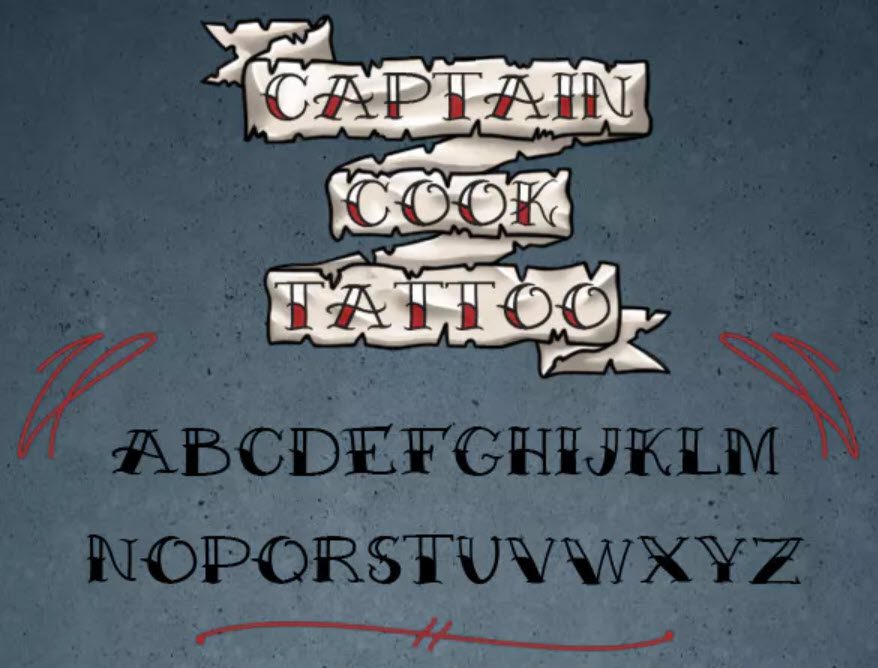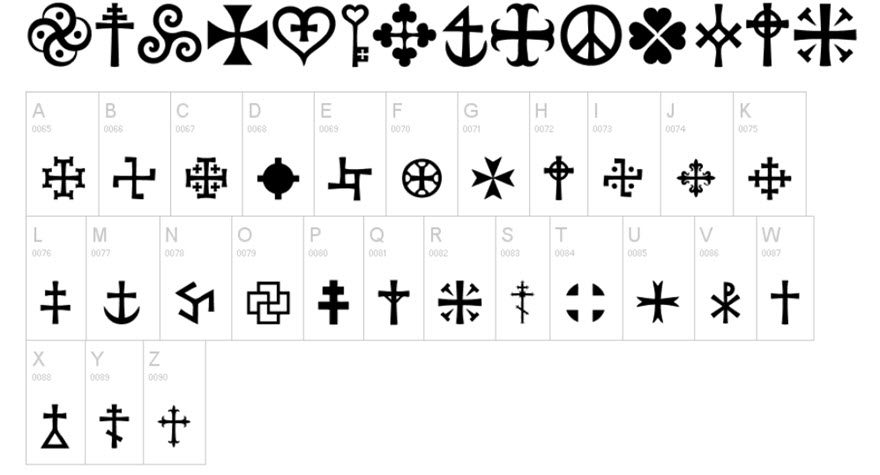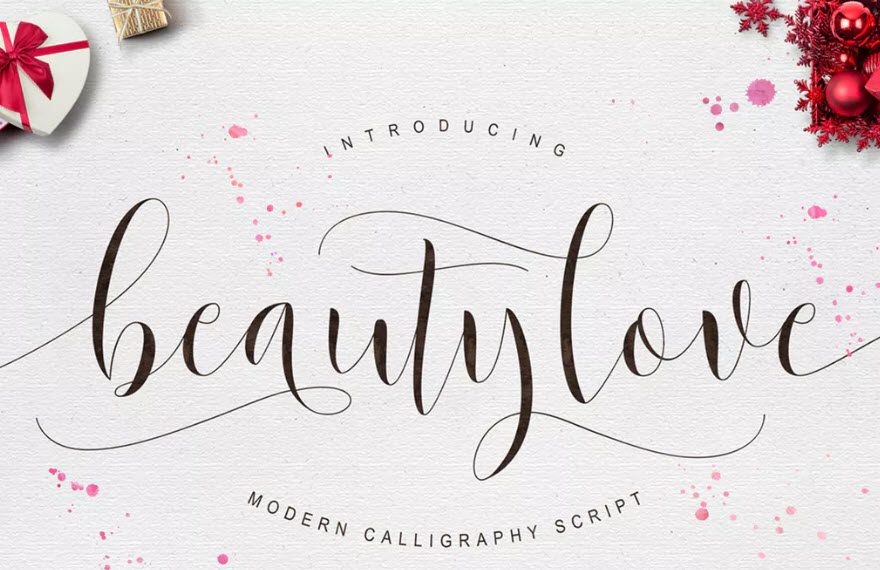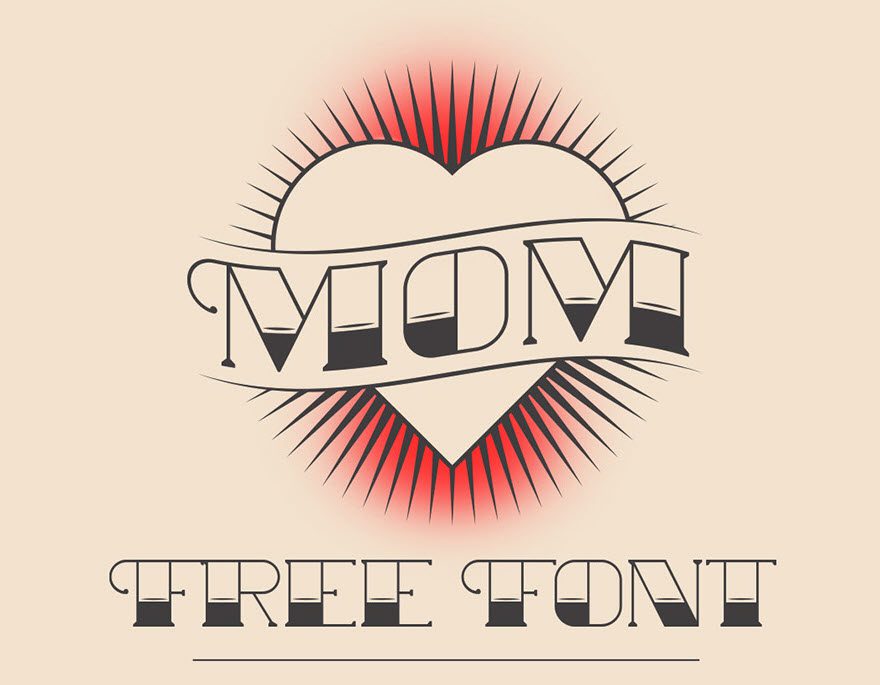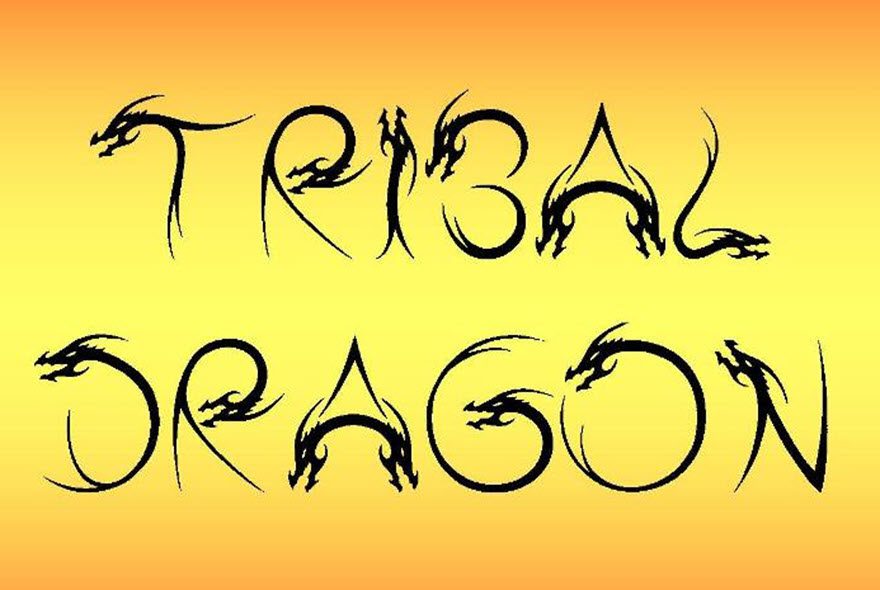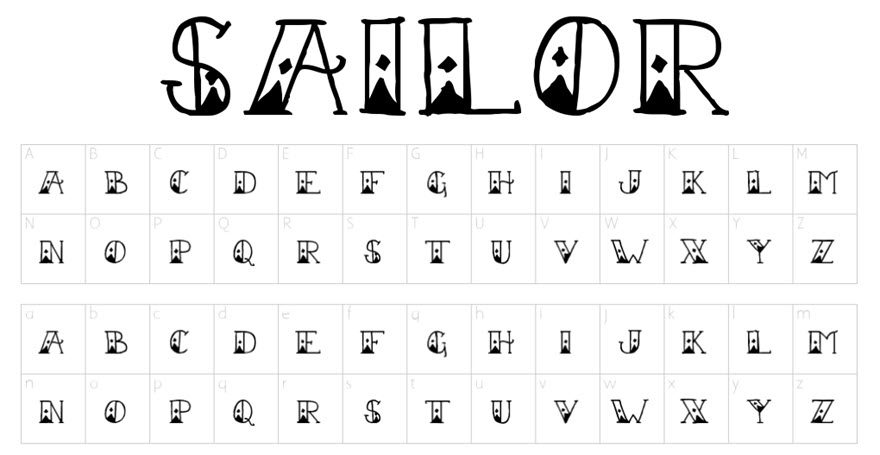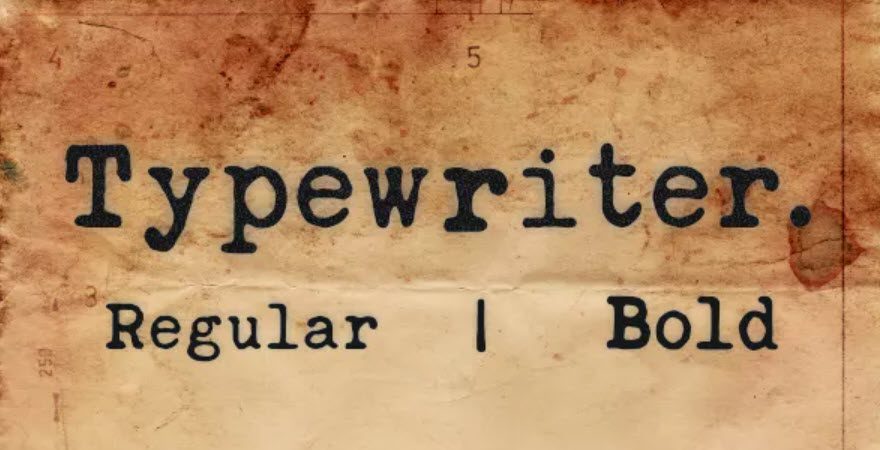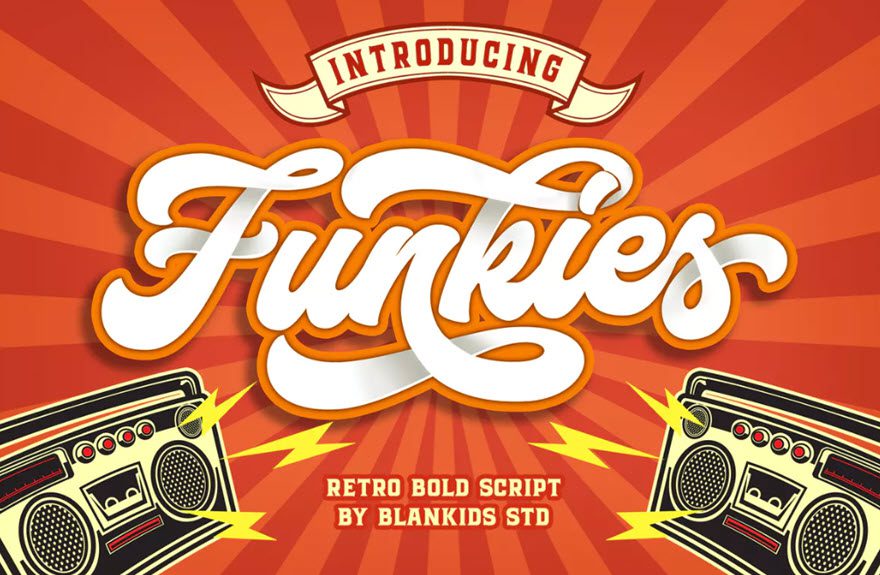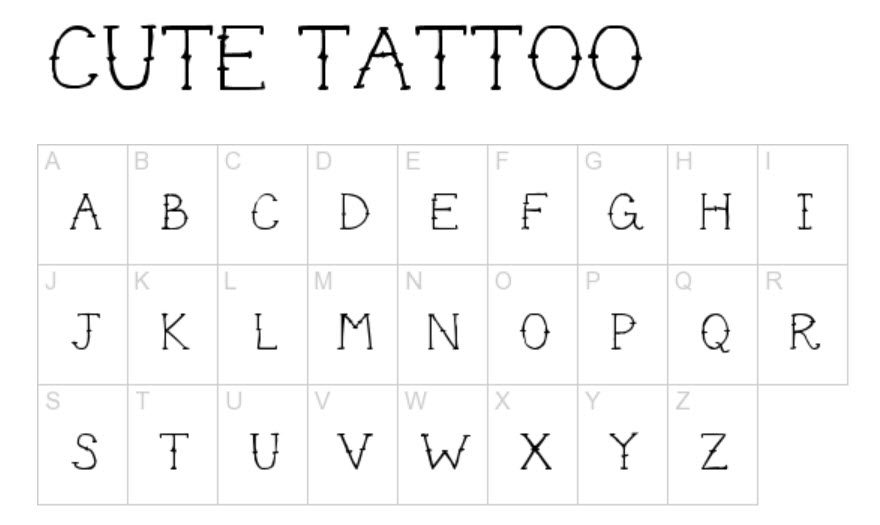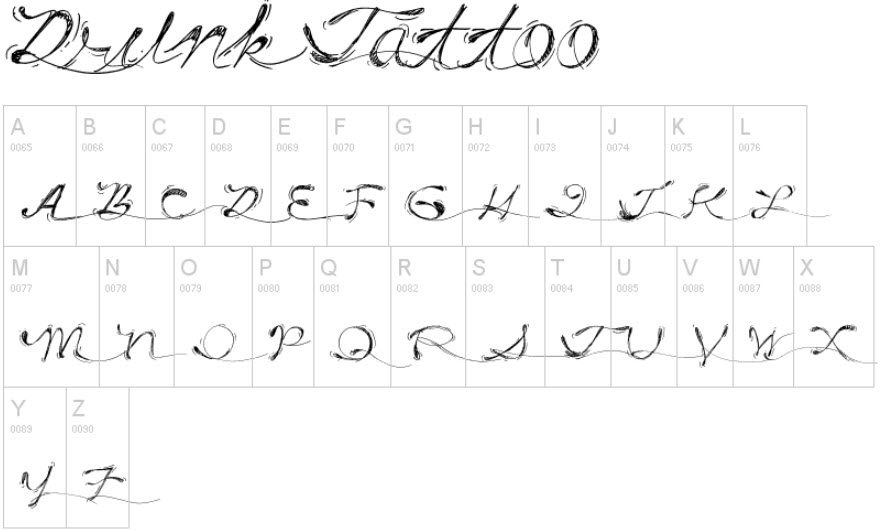
21 Tattoo Fonts and Scripts to Ink into Your Website Forever
Tattoos are (nearly) forever. So you want to make sure that the font you choose to script into your skin is as perfect as it can possibly be. The same holds true of your website. If you follow best practices, you’re not changing up themes and fonts terribly often. So if you’re looking for an edgy, indie aesthetic for your website, you can’t go wrong iwth any of these tattoo fonts.
Free Tattoo Fonts
1. Tuamotu
Nothing says tattoo quite like tribal designs, so loading this onto your website (or potentially your bicep) will make sure you stay on-brand and on-point with your tattoo script prowess.
2. Blackletter
Another staple of tattoos, Blackletter evokes the gothic and traditional tattoo script we’re used to seeing accompany skulls, crosses, and emblazoned on belt buckles.
3. Crux
Crux is the Wingdings of free tattoo fonts. You get scalable symbols and iconography to bolster any other tattoo script you choose. With staples from various styles, installing this set is a no-brainer.
4. MOM
We are just so happy this exists.
5. Sailor
If Captain Cook down below isn’t in your budget, but you want a vintage, sailor theme on your website without the cost, you can’t go wrong with the aptly named Sailor.
6. Tribal Tattoo
Tribal Tattoo is another icon font that keeps the South Pacific them alive. Every major character is mapped to a different icon, from upper-case, lower-case, numbers, and special characters.
7. Tattoo Vieja Escuela
Tattoo Vieja Escuela is an amazing set of icons, but you need to be careful when using them on your website. There are copyrighted characters and images within the font, so while using them for inspiration or even mock-ups will be perfectly okay, putting them out in a commercial capacity could land you in some hot water.
8. Loopy
Loopy is one of the coolest fonts we have ever seen. Not only does look awesome on your website, you can also use it to design some very awesome tattoos. On top of that — and this is why it’s so cool — it is the only font we have ever seen that comes with full-on instructions for use.
That’s dedication and creativity, and we respect that a lot.
9. Cute Tattoo
While the name Cute Tattoo doesn’t necessarily indicate something everyone would want to be etched into them (or maybe anything) permanently, the font itself is a unique, hand-drawn take on a serif font that looks just as at home on your forearm, neck, or back as it does the About Us page for your organic pet food and livery store.
10. Barbed Ink
The thematic opposite of Cute Tattoo, Barbed Ink is a thick-lined, sans-serif script that you can use to both decorate and headline. While it probably won’t work great for a body font on your website, it is absolutely a font for your body. With its warped and distored lines, a designer could easily manipulate Barbed Ink into a semi-abstract work of art.
11. Drunk Tattoo
The winner of the best tattoo font name goes to Drunk Tattoo. While we don’t endorse nor promote going out and getting one yourself, we can’t not be curious about what kind of art led to the creation of this font.
12. Los Angeles
If you want your website to evoke leather jackets and biker bars, Los Angeles is hands-down the best choice you can get. We personally can’t wait to be driving down the freeway and seeing a real jacket emblazoned with the logo for this font that says the quick brown fox jumps over the lazy dog. But if you can’t wait for that to happen, your website can be a perfectly fine substitute.
13. Original Gangsta
Not all of us can pull off the shoulder-to-shoulder tattoo. That’s okay. With Original Gangsta, we don’t have to. Our websites can be overrun with headlines written in this interesting serif font. We have lots of smooth edges and curls, but at the same time sharp edges and serifs give it a slightly edgier feel.
14. Tribal and Tribal Two
Rounding out the free options on our list, we thought we’d make sure that all your tribal needs were met. Tribal and Tribal Two give you the rest of the tools you need to make your website flush with tattoo style. Use some of the icons above and then this tattoo script to test out your next trip to the tattoo parlor or give your visitors a downloadable template so they can deck themselves out the same way you did.